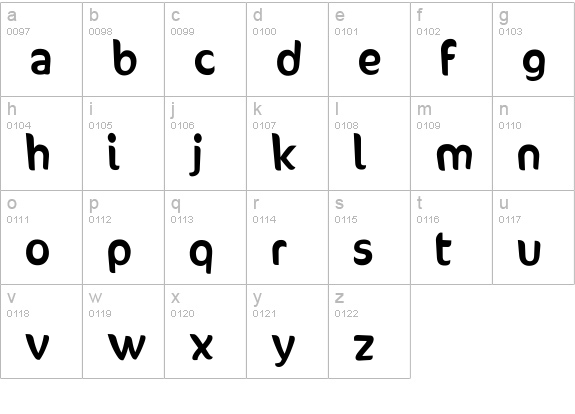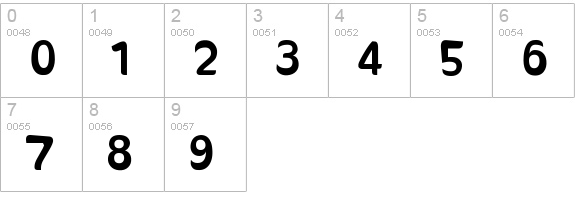
SunnySide Font Details
Introducing SunnySide font, a delightful and charming typeface that exudes warmth and cheerfulness. With its rounded edges and playful design, SunnySide is perfect for adding a touch of whimsy to your projects. This versatile font is ideal for a wide range of applications, from branding to invitations to social media graphics. What makes SunnySide font even more appealing is that it is completely free to download at FontsMarket.com. Yes, you read that right - this high-quality font is available for you to use without any cost. So why wait? Give your designs a sunny disposition with SunnySide font today!